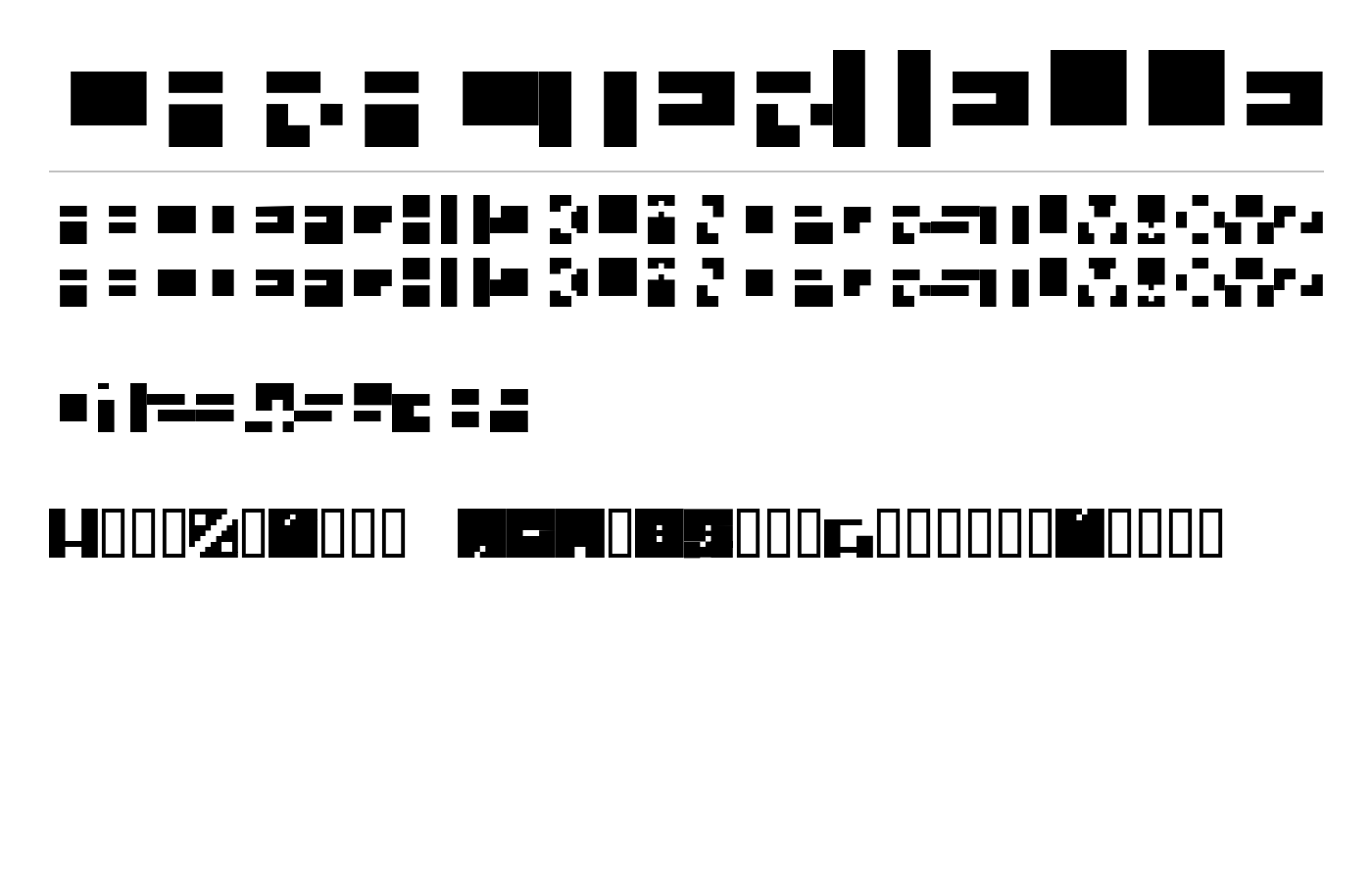
Caracterielle is a bold, geometric sans serif font with a modern, experimental vibe characterized by its blocky, pixel-inspired letterforms. Its highly stylized, almost modular shapes create a digital and futuristic feel, making it ideal for tech, gaming, or avant-garde design projects that want to stand out with a strong, unconventional personality. This font works best in headlines, logos, or creative visuals where its unique aesthetic can capture attention and convey innovation.
Caracterielle Font